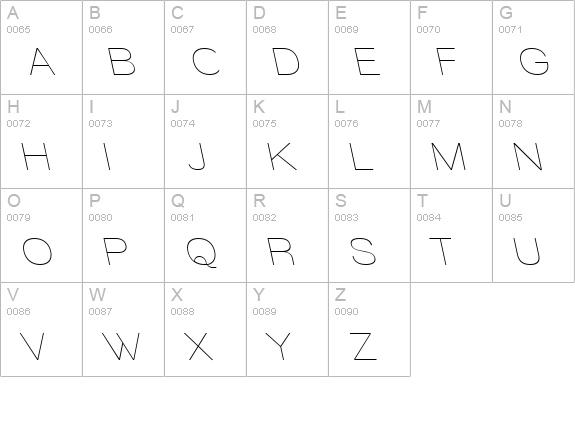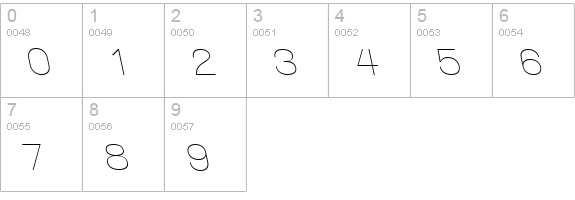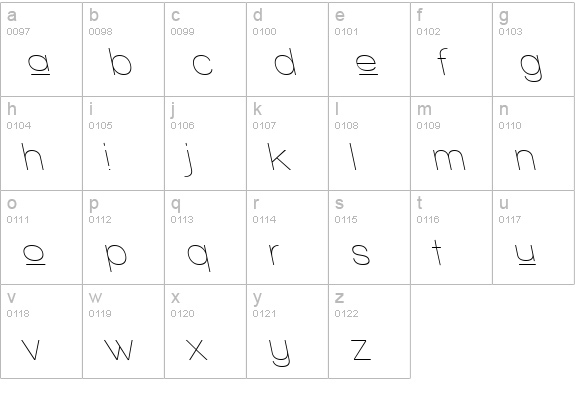
The Walkway Upper RevOblique font exudes a sense of modernity and sophistication with its sleek, slanted design. This unique font is perfect for adding a touch of elegance to any project, whether it be a logo, poster, or website. The sharp angles and clean lines of Walkway Upper RevOblique make it a standout choice for those looking to make a bold statement with their typography. Best of all, this striking font is available for free download at FontsMarket.com. Don't miss out on the opportunity to elevate your designs with the contemporary charm of Walkway Upper RevOblique. Download it today and unleash your creativity with this stunning typeface.